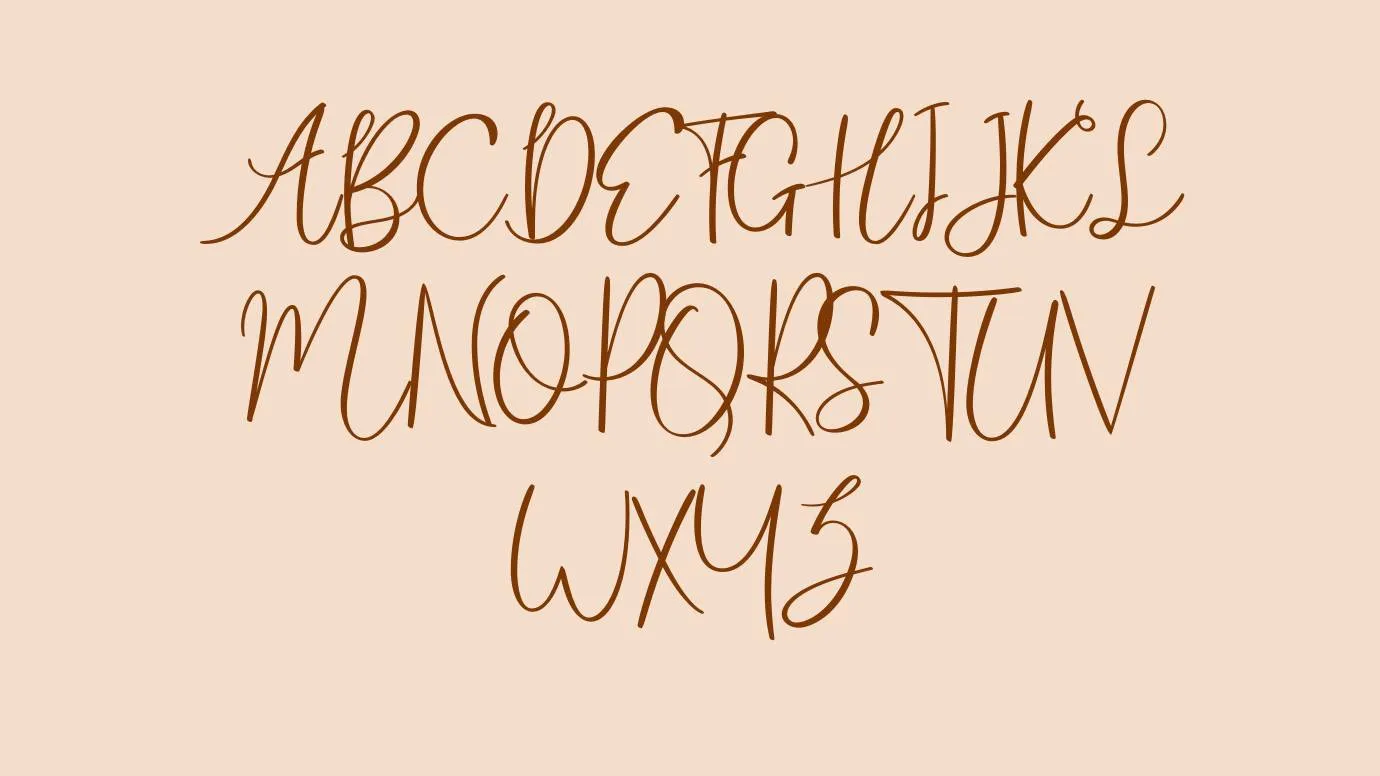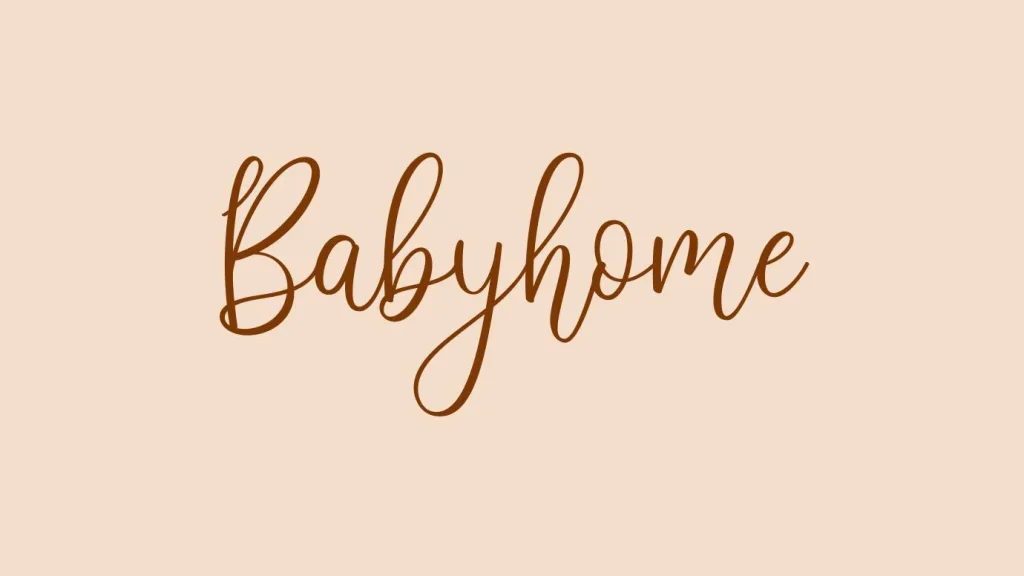
Due to its smooth, clean, and strong appearance, this typeface is popular around the world. To create unique stunning designs for any project. Babyhome Font style is valuable for many businesses.
The style is also idealized for pairing with magneta font. This style makes appealing designs. It is a valuable choice for making interesting and attractive content for business projects.
You can use this beautiful typeface for creating stunning and unique projects. By using its online generator tool, you can easily create text graphics that can be viewed on your computer. Numerous creators utilized this amazing typeface for their design purposes.
Usage of Babyhome Font in Brands
By using this style, you can make business plan layouts, website designs, t-shirt logos, and more. It is also valuable for making card designs like wedding cards, welcome cards, and other projects.
This typeface is suitable for flyers and postcard designs. This typeface is the finest option to increase the appeal of the project.
The style is amazing for industrial and automobile designs on a global scale. While using this typeface you can design promotions, brand management, and brand image. Additionally, this family is utilized for product labeling and packaging, Instagram posts and images, etc.
| Name | Babyhome Font |
| Designer | Haksen Studio |
Where can we utilize Babyhome Font?
You can utilize this inspiring typeface in brand logo designing, business plan layouts, website designs, t-shirt designs, and more.
Who designed Babyhome Font?
Babyhome Font is designed by Haksen Studio and it is a script style.